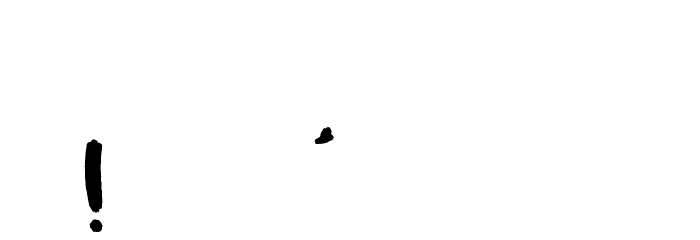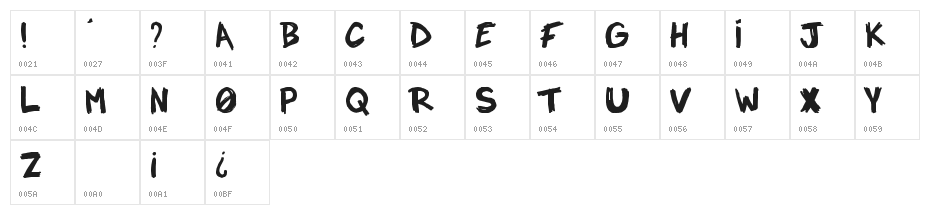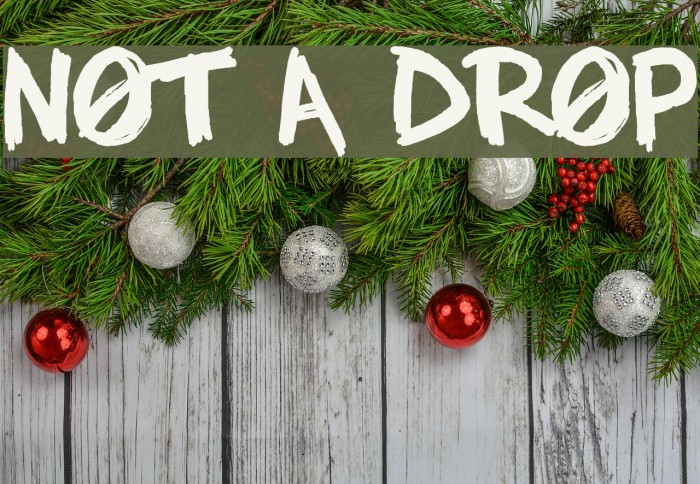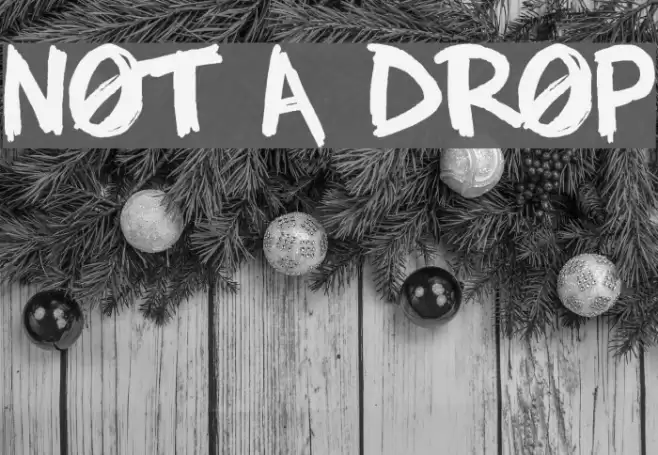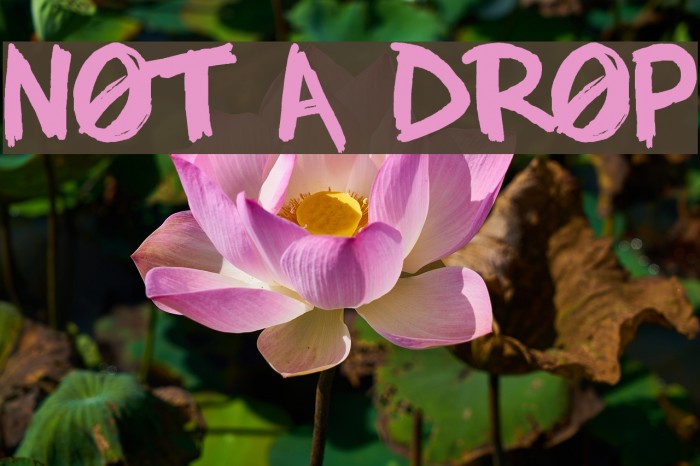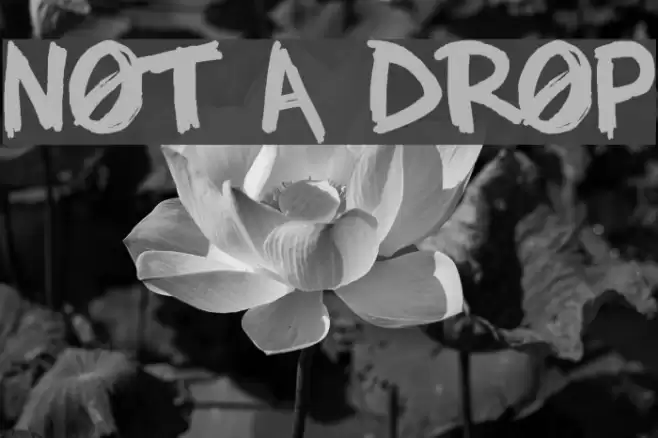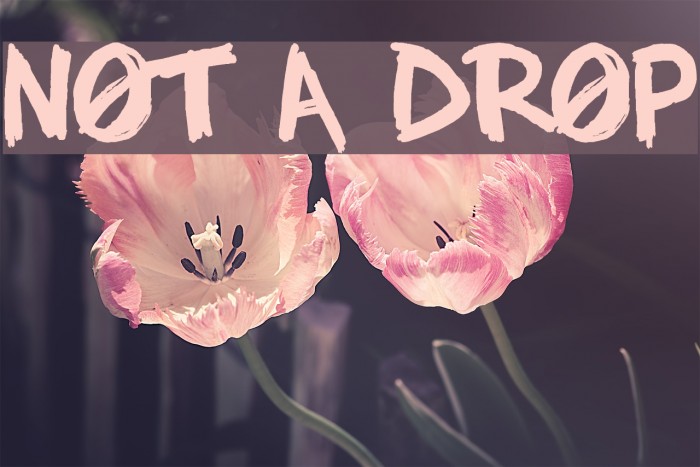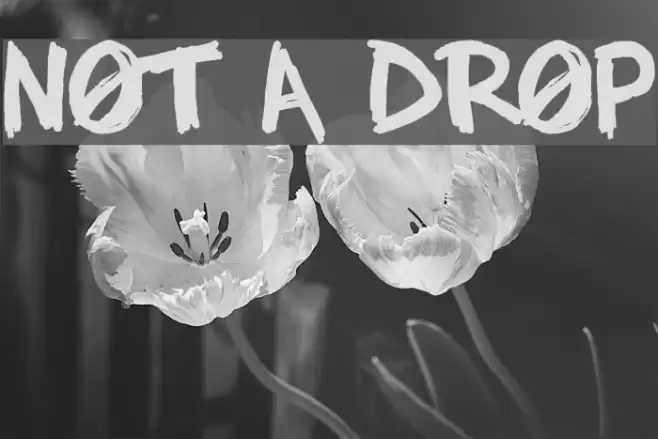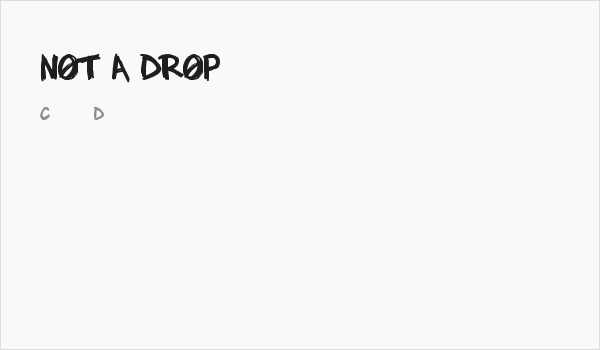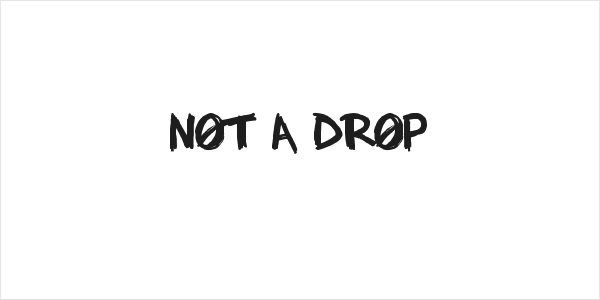
NOT A DROP Font
NOT A DROP Description
This font features a bold and expressive style, characterized by its thick, brush-like strokes that convey a sense of energy and dynamism. The uppercase letters are prominent and slightly irregular, giving a hand-drawn appearance that adds a personal touch. The unique design of each character, such as the slashed zero and the distinctive shapes of letters like 'Q' and 'R', enhances its artistic flair. The font's overall look is both modern and playful, making it suitable for creative projects that require a strong visual impact.
| Proposed Projects | Ideal for posters, branding, and creative projects that need a bold, artistic touch. |